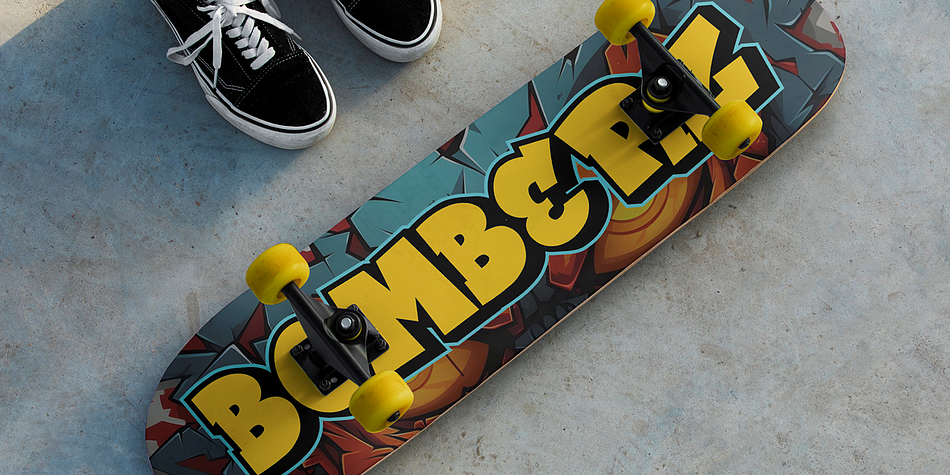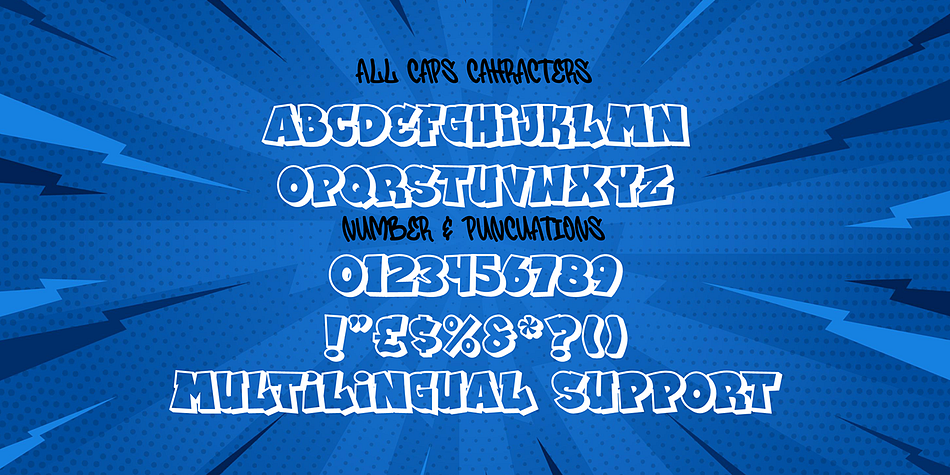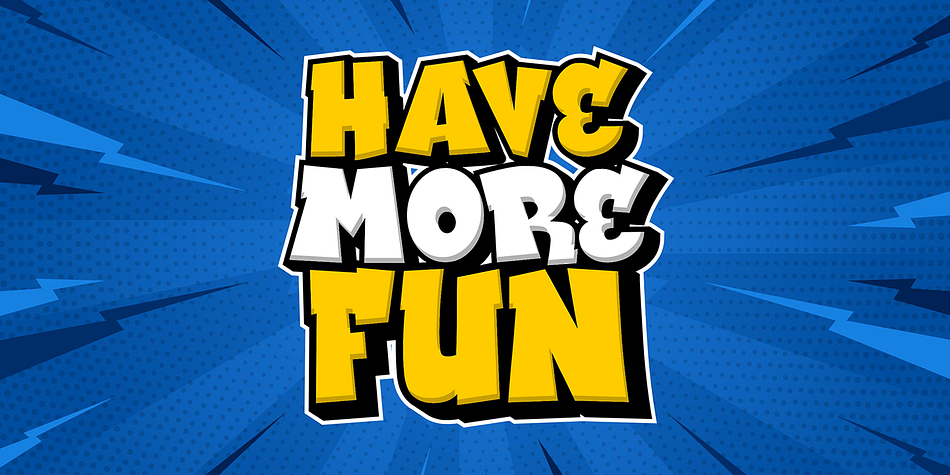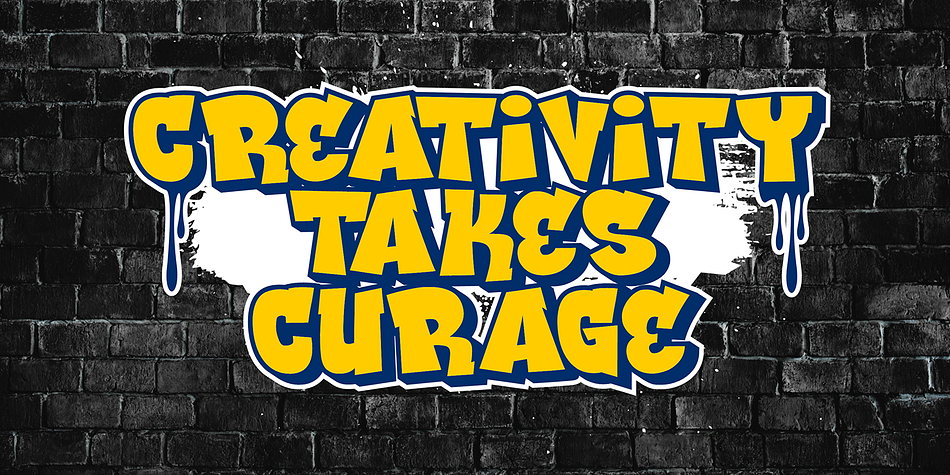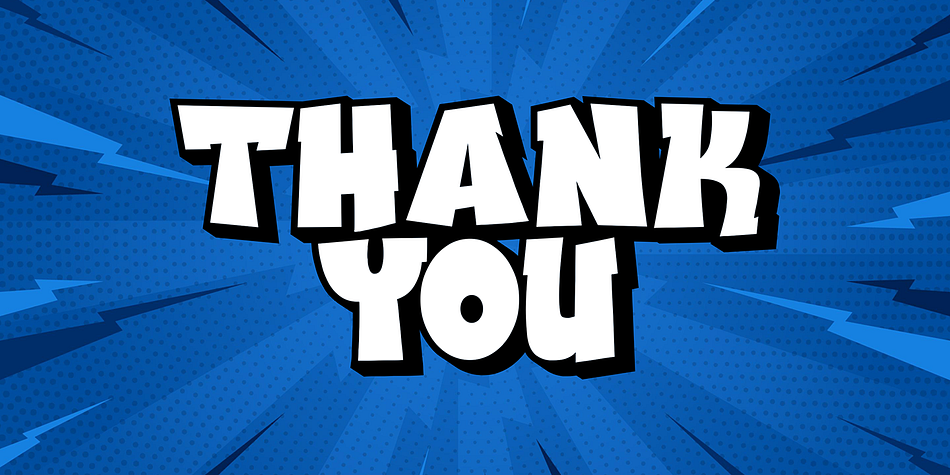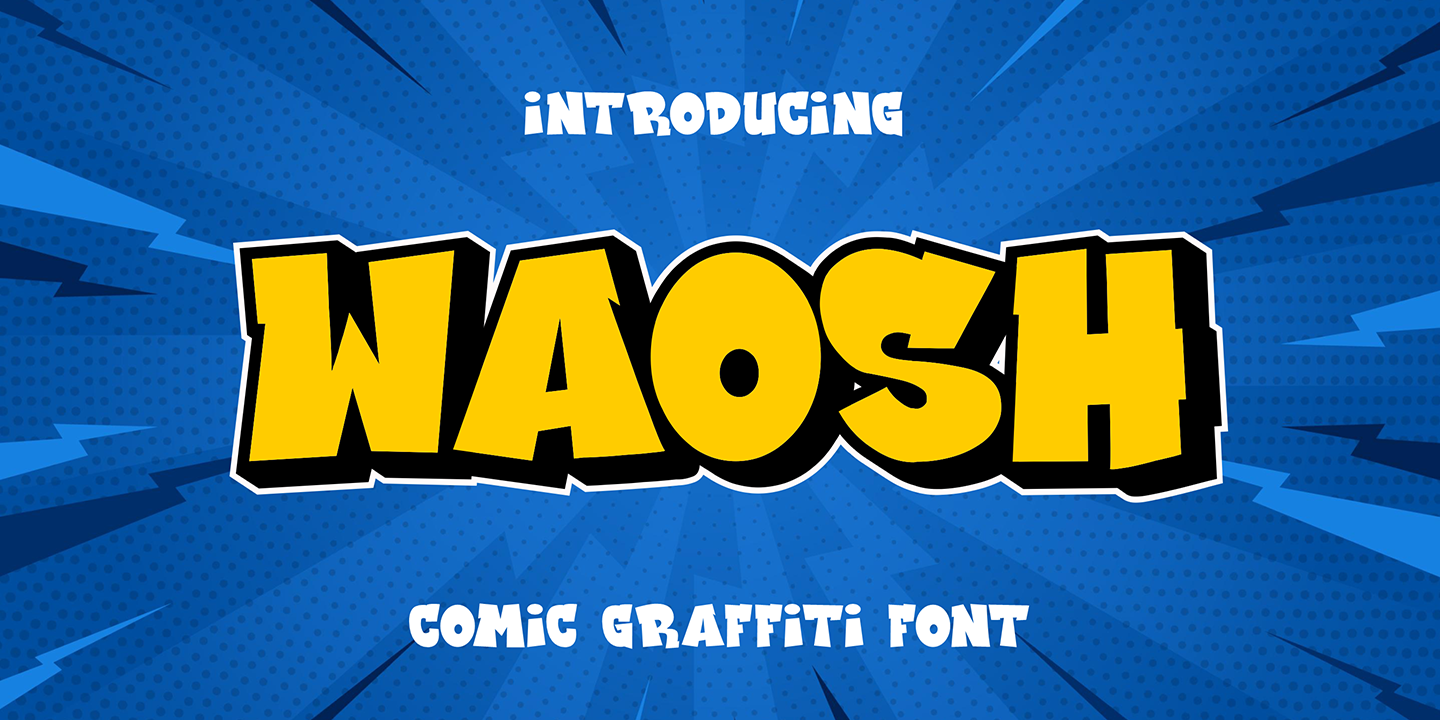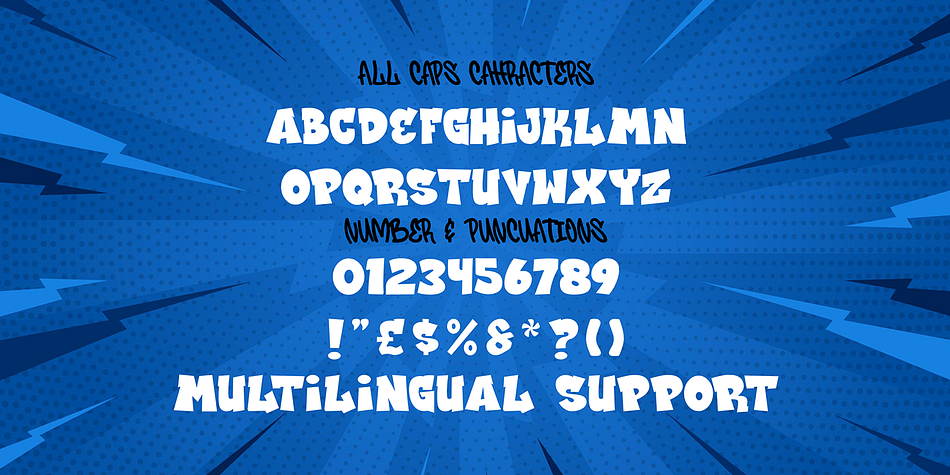
Waosh
Waosh is a display font family. This typeface has two styles and was published by Cikareotype Studio.
“Waosh” is a bold and dynamic thick 3D layered comic font that brings a playful and vibrant touch to any design. Its layered structure allows for a striking 3D effect, adding depth and visual interest to your text. Perfect for comic books, playful posters, children’s books, and any project that needs a fun and engaging typographic style, “Waosh” makes your designs stand out with its energetic and captivating presence.